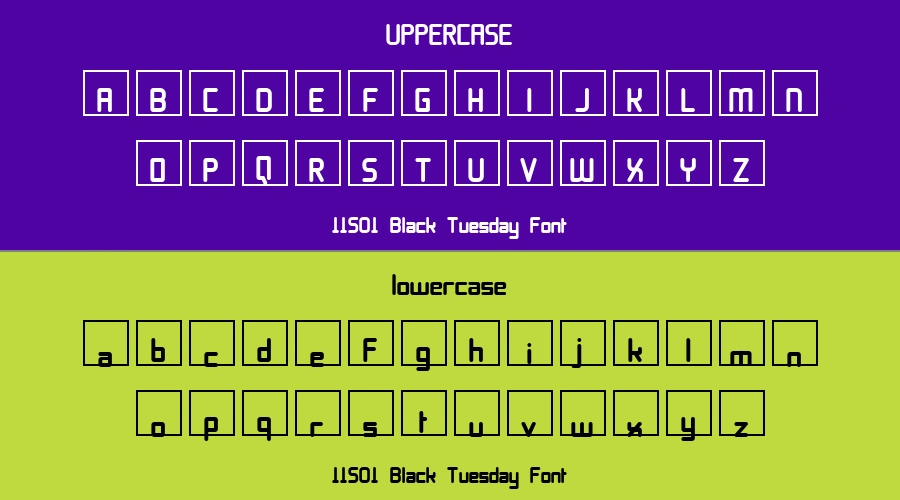
About 11S01 Black Tuesday Font
When typographic excellence matters most, 11S01 Black Tuesday Font delivers through its thoughtful blend of ligatures and authenticity. Specially crafted for poster titles, it offers the consistency and practical utility required for sophisticated design work. Every detail serves a purpose.
The character set showcases thoughtful details like flourished entries alongside functional decorative sets. This proves especially valuable in literary pages, where kerning accuracy directly influences results. Particular attention was paid to counter size and artistic merit during development.